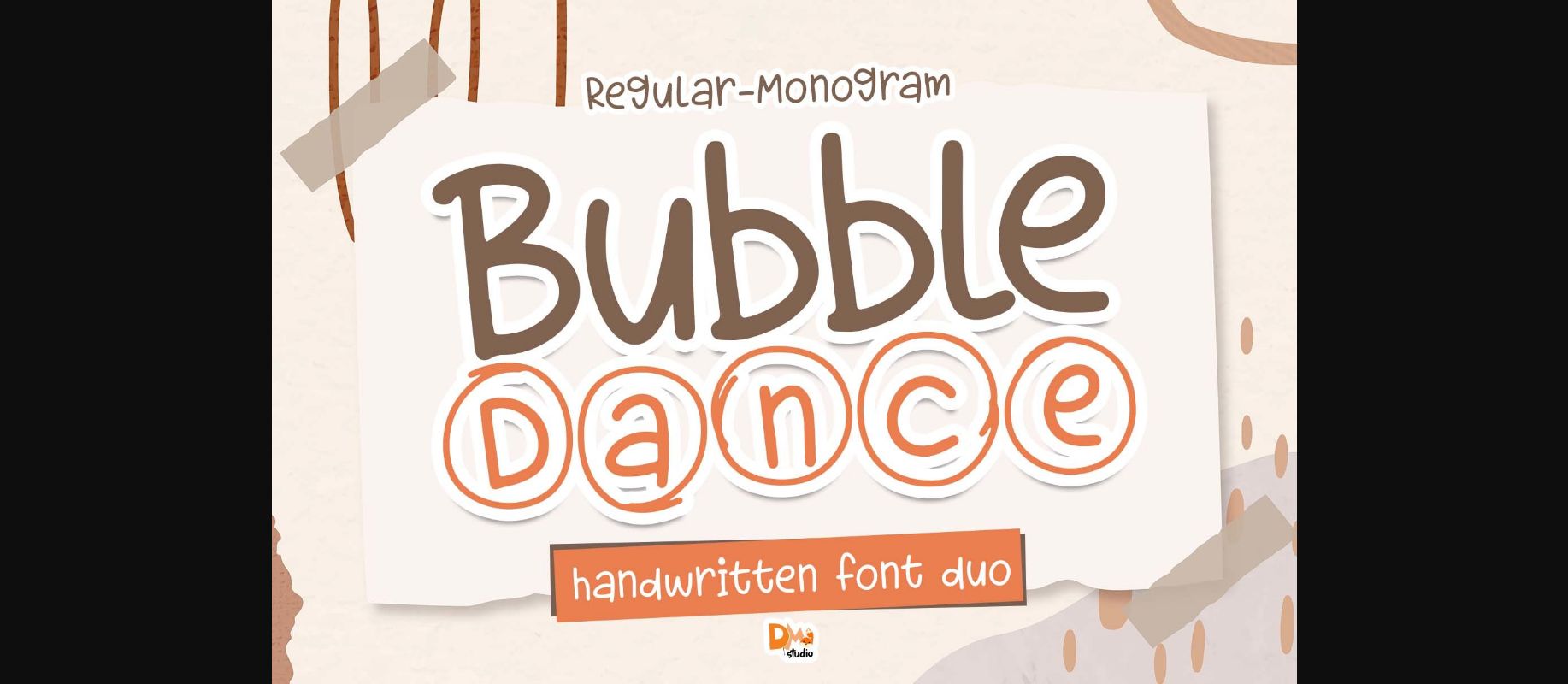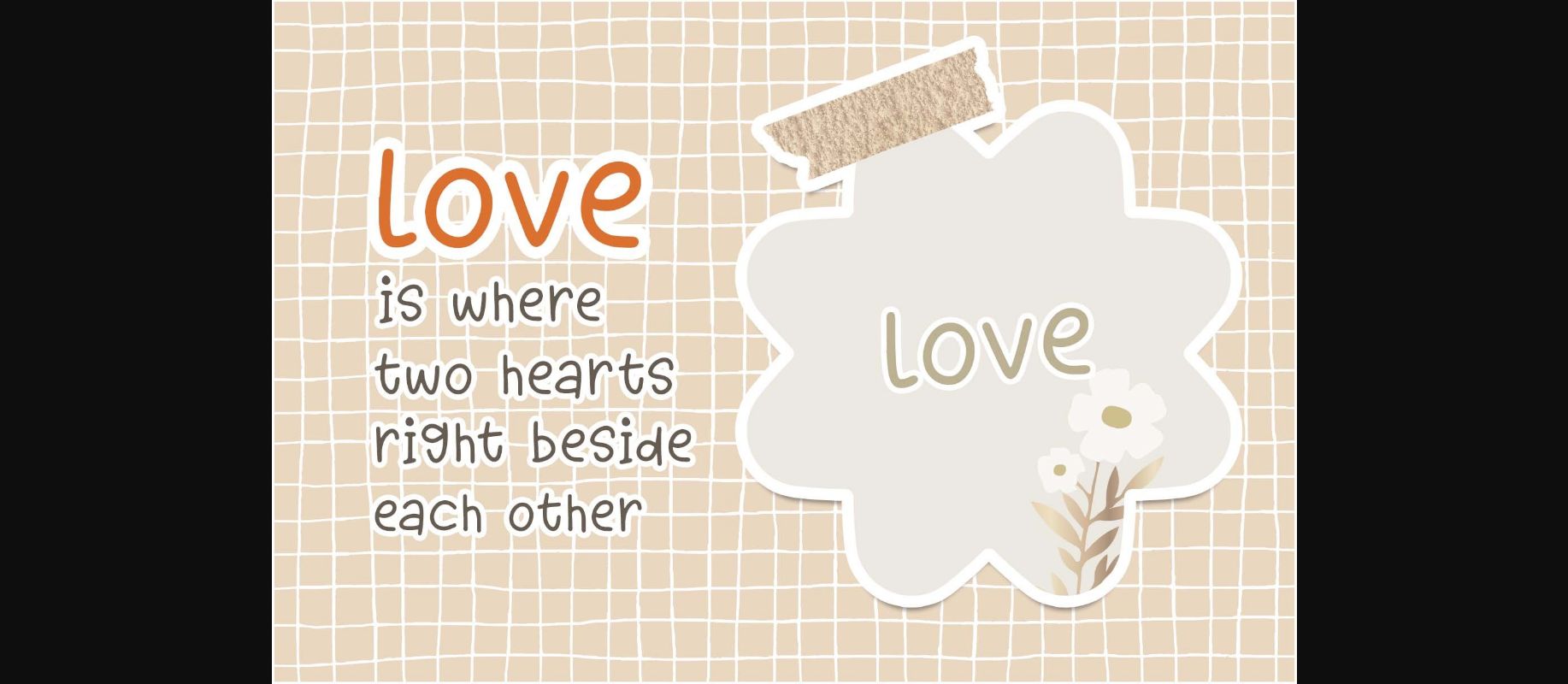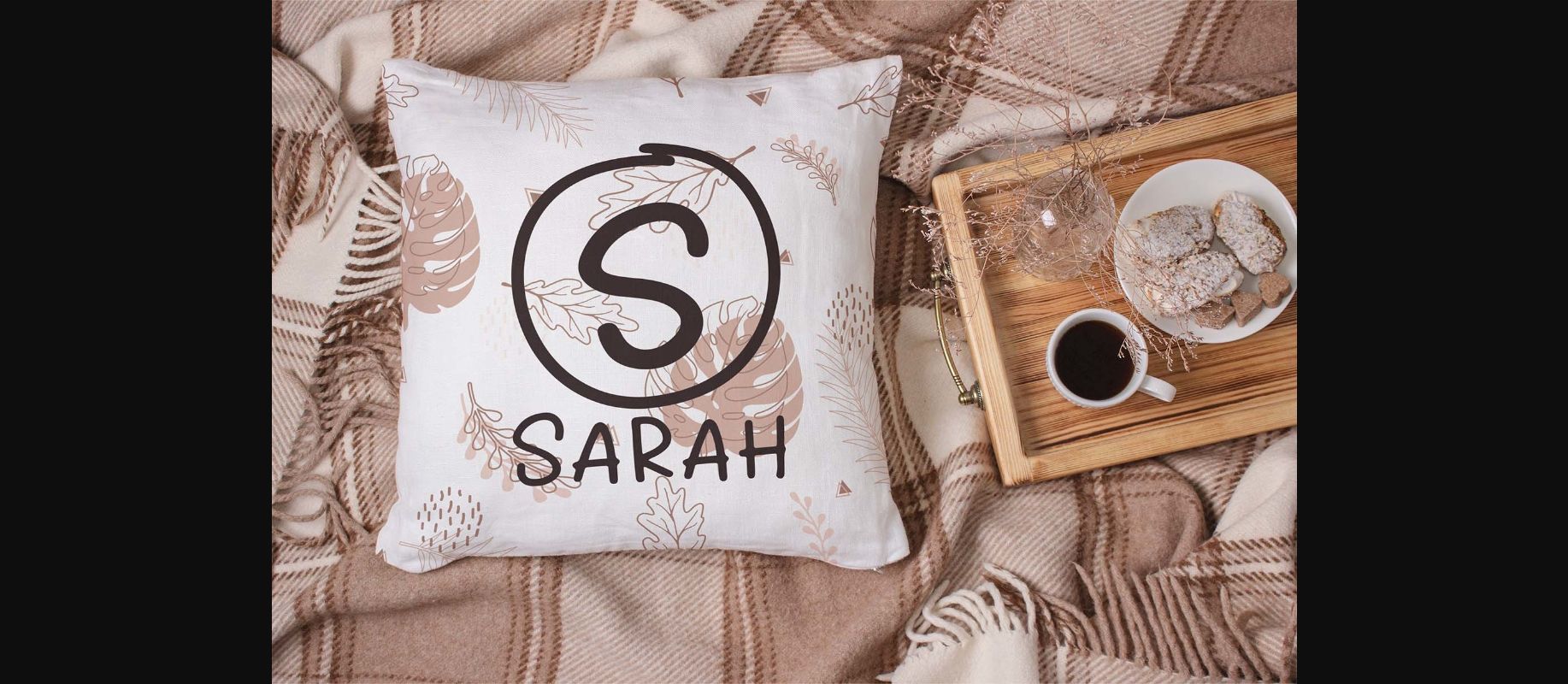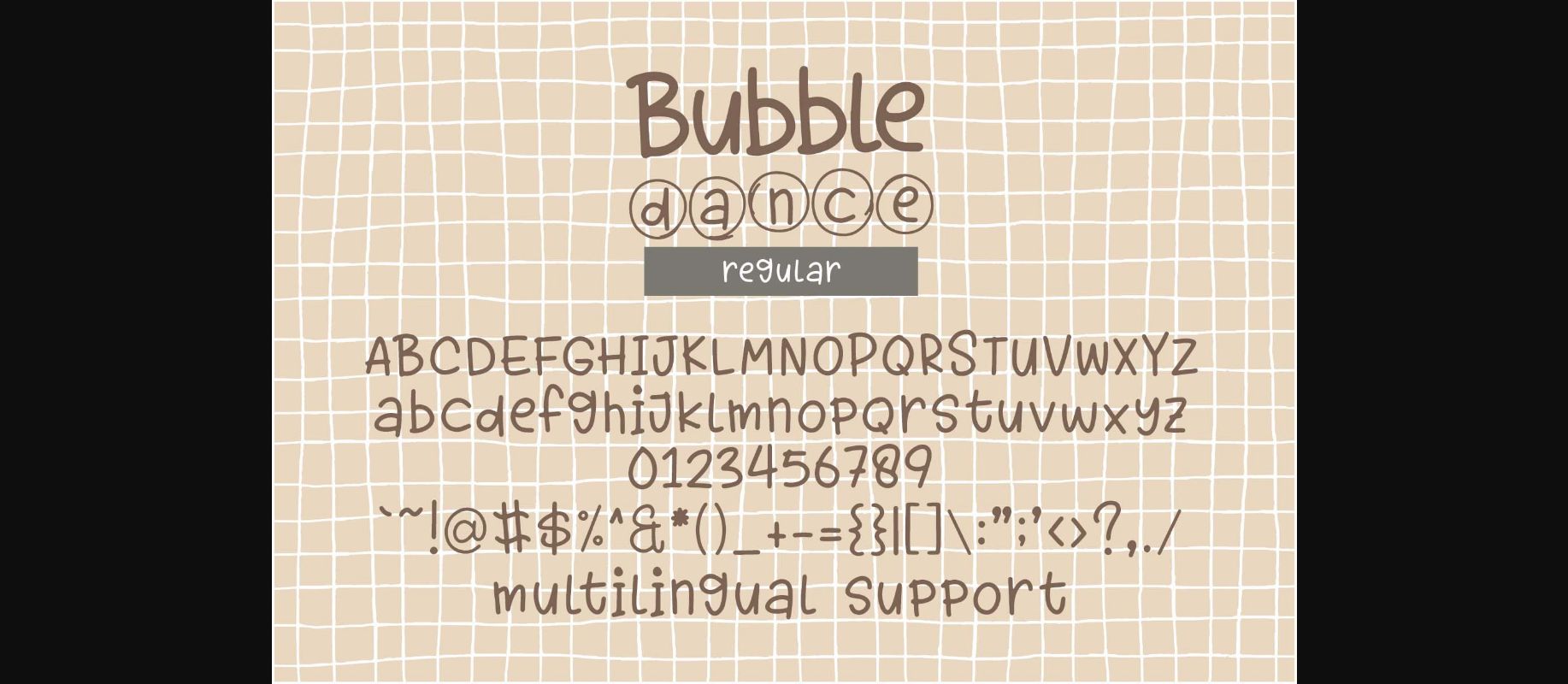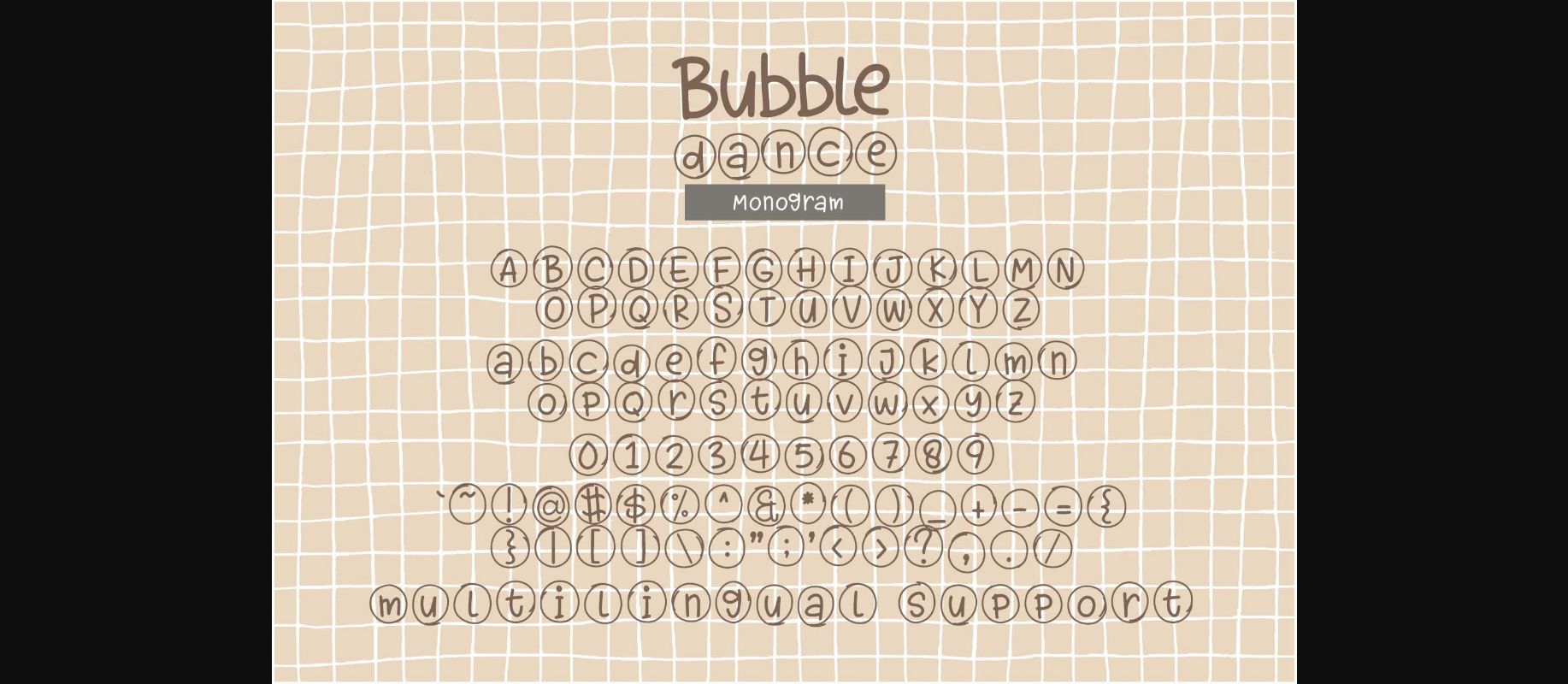
Bubble Dance Font
About Bubble Dance Font
Bubble dance is a handwritten and decorative duo font. Great for those who love monograms or enjoy making some cute crafts. Make your own designs more unique and lovely using this font!